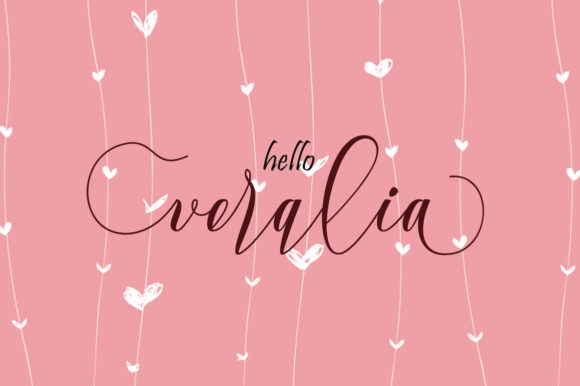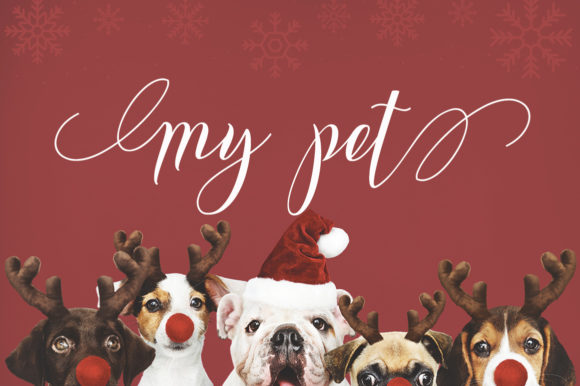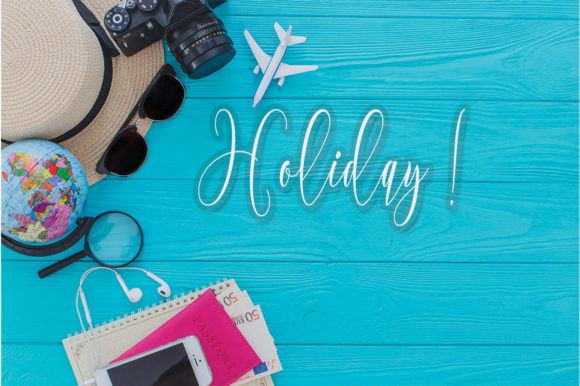
Introduction to Jodilo Font
Have you ever stared at a blank page, waiting for the perfect font to spark your creativity? For designers and crafters alike, finding the right font can be a daunting task. But what if I told you that there’s a font that can transport you to a world of whimsy and wonder? Meet the Jodilo Font, a delightful script that’s sure to bring a smile to your face.
This high-quality font features beautiful swashes that will add a touch of elegance to any design project. Whether you’re working on a creative project or need a design resource for a client, Jodilo Font is a valuable addition to your toolkit. And the best part? It’s available for a free download, so you can get creative without breaking the bank.
- Includes a range of stylish and modern characters, perfect for adding a touch of sophistication to any design project.
Honest Review: Jodilo Font
I recently came across the Jodilo Font, a free download that has caught my attention for its unique design. As a designer, I’m always on the lookout for high-quality design resources to enhance my creative projects.
What works well for me about the Jodilo Font is its versatility and modern aesthetic. The font’s transparent background makes it easy to incorporate into various design elements, such as logos, icons, or text overlays. ✨ I also appreciate the font’s high level of detail and the subtle nuances in its lettering, which give it a distinctive character.
Some potential limitations I’ve noticed are:
- ⚠️ Limited font styles and variations, which might not be suitable for more complex design projects.
- ⚠️ The font may not be optimized for small text sizes, which could affect readability.
Overall, I’m impressed with the Jodilo Font as a design resource, especially considering it’s a free download. While it may not be the most comprehensive font library, it’s a great starting point for simple design projects or for adding a unique touch to your creative work.
When using Jodilo Font, consider using a transparent background to give your designs a clean and minimalist look. You can also experiment with different font sizes and styles to add visual interest to your project.
Jodilo Font is a versatile design resource that can be used in a variety of creative projects, including logos, business cards, and social media graphics. Its high quality and transparent background make it an ideal choice for designers looking to create professional-looking designs.